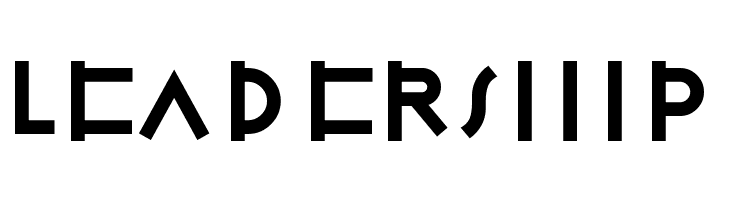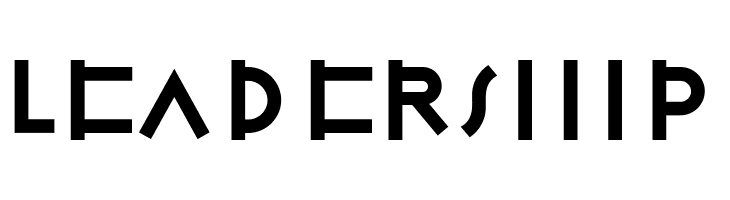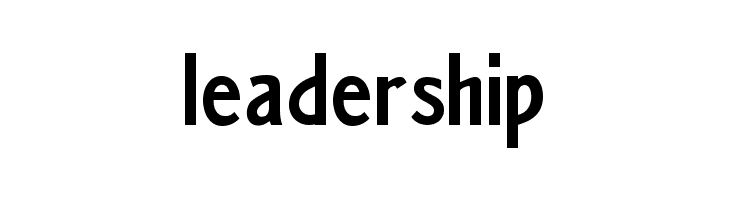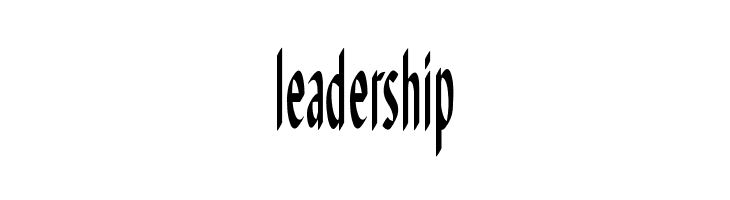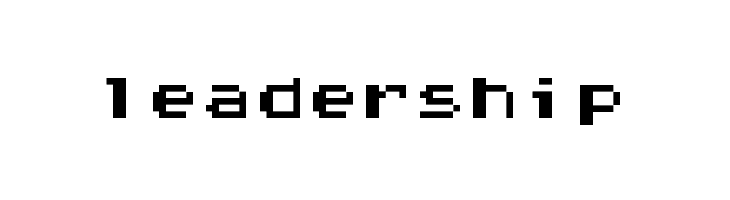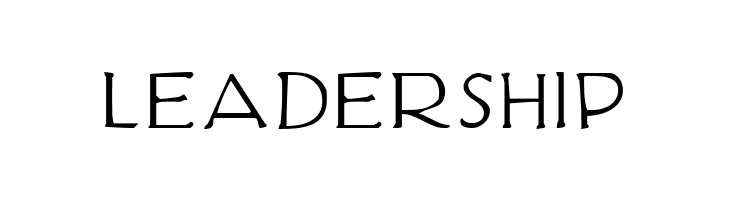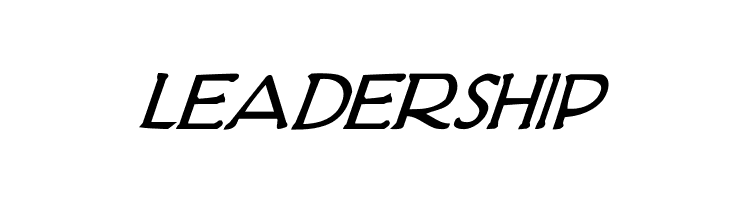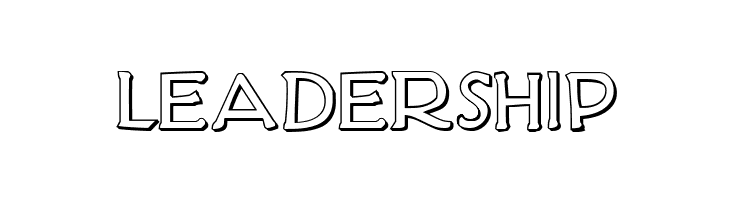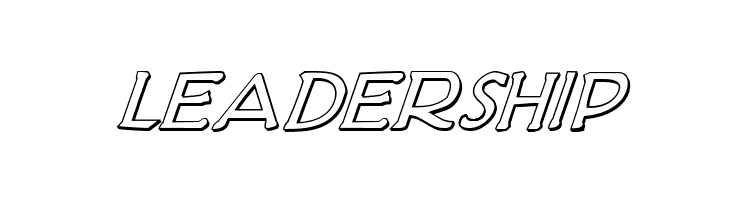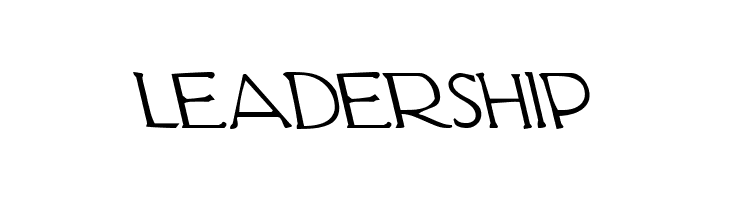
A bold and dynamic font with a unique blend of curves and sharp edges.
A bold, italic font with a dynamic and elegant style.
A modern, geometric font with sharp edges and balanced spacing.
An elegant italic font with smooth, flowing letterforms and a sophisticated appearance.
A dynamic, left-leaning italic font with artistic flair and unique character design.
A bold, shadowed outline font with a three-dimensional effect.
A modern italic font with a shadow effect, offering elegance and depth.
An elegant script font with flowing, interconnected letterforms and intricate swashes.
A bold, dynamic brush script font with an expressive, hand-painted style.
An elegant, cursive script font with flowing, connected letters and high contrast strokes.
A playful, handwritten script font with bold, rounded strokes.
A modern, geometric sans-serif font with uniform stroke widths.
An elegant and flowing script font with ornate letterforms.
A decorative font with cartoon faces representing each character.
A bold, geometric font with strong, angular lines and a modern aesthetic.
A bold, modern font with a unique horizontal line pattern.
A dynamic italic font with a futuristic, motion-inspired design.
A bold, geometric font with an art deco influence.
Casual handwritten script font.
A bold, geometric font with Art Deco influences, ideal for decorative use.
A modern, geometric font with half-circle and line elements.
A bold, modern font with partially filled characters and a futuristic aesthetic.
A bold, modern font with a vintage touch, perfect for impactful designs.
A display font made of superhero and comic book logos as glyphs.
Playful dingbat font with hand-drawn angel illustrations.
A whimsical collection of cartoon-like illustrations with angelic themes.
A whimsical, Halloween-themed font featuring playful hand-drawn illustrations.
A spooky, Halloween-themed font with spider web and spider accents.
A playful, spooky font with jagged, uneven strokes, perfect for Halloween themes.
A spooky, Halloween-themed font with dripping, cobwebbed characters.